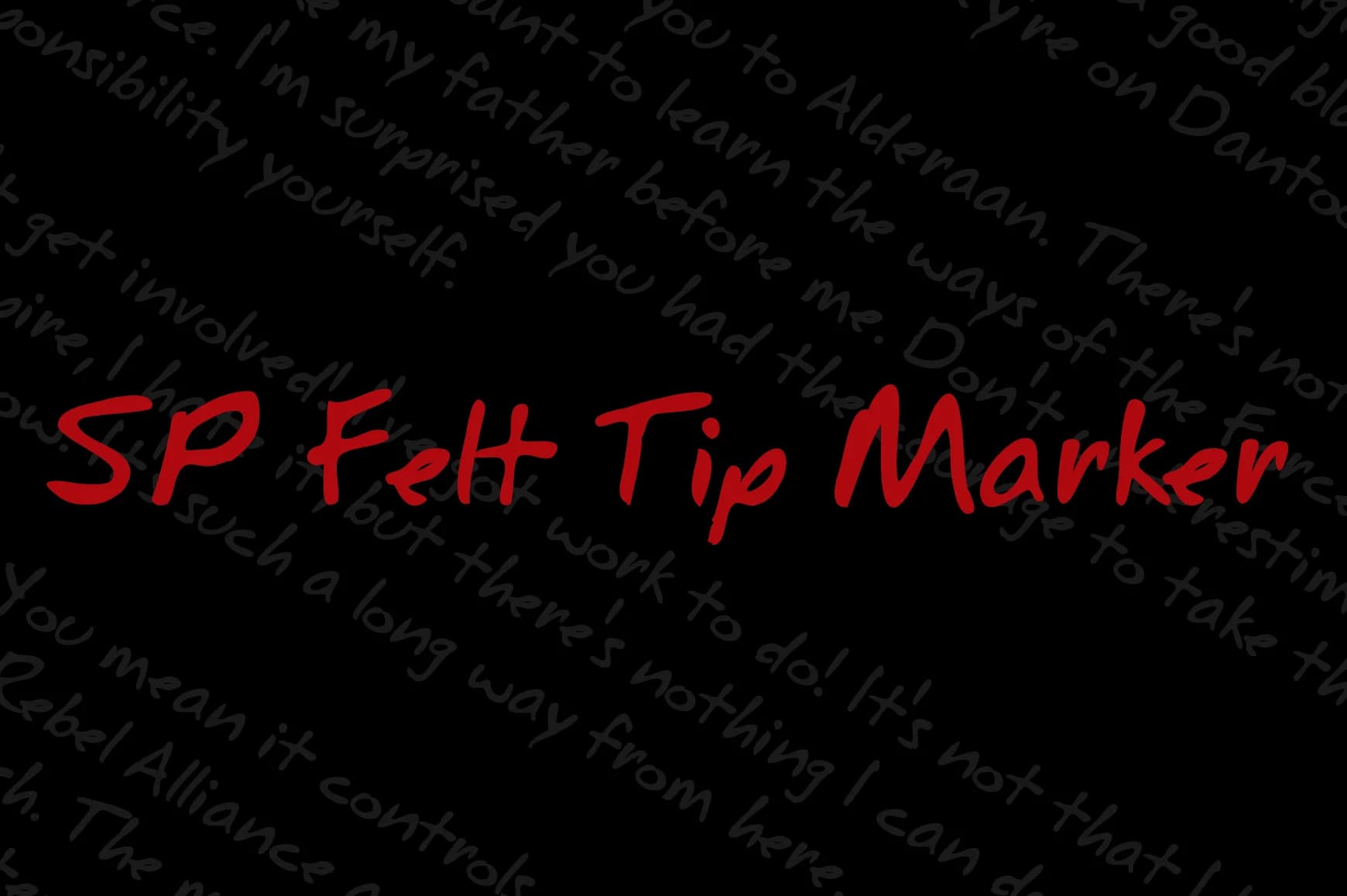
About SP Felt Tip Marker Font
SP Felt Tip Marker Font by sizzleprint is a casual script typeface that captures the relaxed warmth and authenticity of hand-drawn marker work. Rather than sterile digital reproduction, it brings genuine character through flowing, organic strokes that feel naturally expressive, as if rendered with an actual felt-tip pen across paper. The font's unpretentious aesthetic makes it instantly recognizable as humanmade rather than algorithmically generated.
This versatile typeface thrives across diverse creative applications. Personalized thank you cards gain meaningful warmth, while event posters command attention with hand-lettered personality. DIY craft signs benefit from its charm, and artisan product labels leverage its authentic appeal for small-batch branding. Wedding invitation suites particularly shine when incorporating this font's accessible character, and custom apparel graphics resonate with makers who prioritize handmade aesthetics over polished sterility. Whether designing stationery packages, developing brand identities, or creating cohesive visual systems, projects demanding genuine character over rigid formality find natural homes here. The font offers technical versatility across various design workflows and output formats, translating smoothly for both print and digital applications.
SP Felt Tip Marker Font is a script font that shines as a display or heading face. Pair it with a clean sans-serif or serif font for body text β the contrast creates a clear hierarchy while the two styles stay balanced and easy to read.